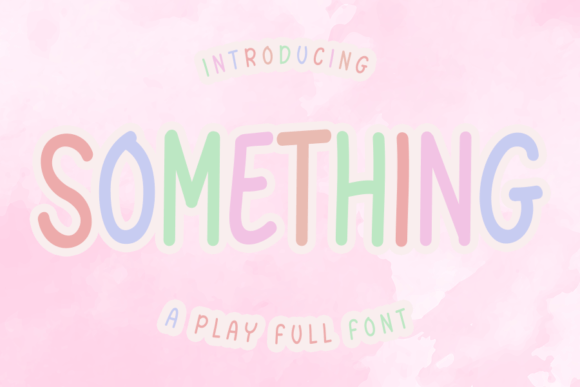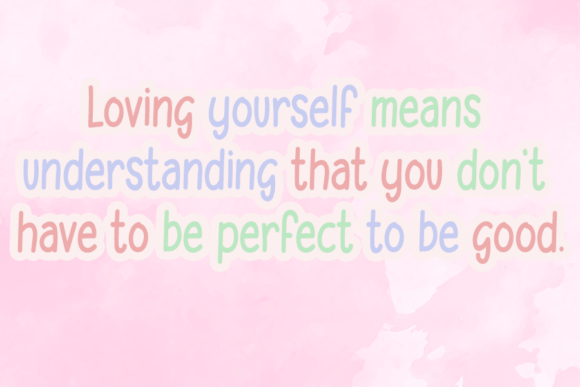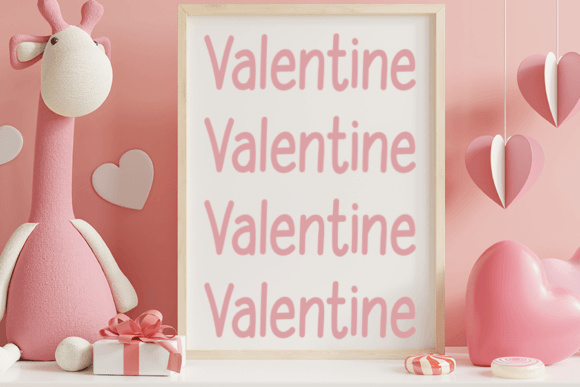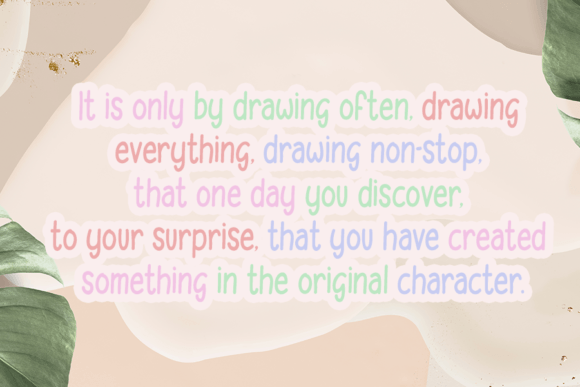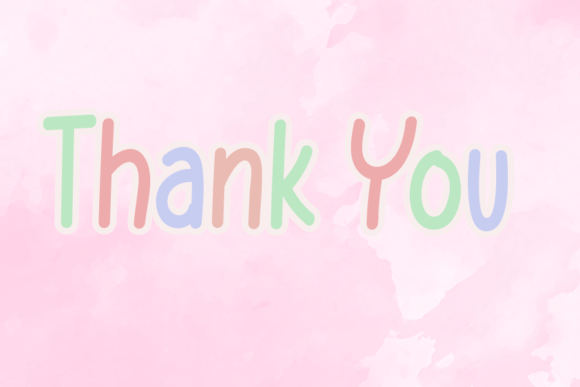
Something Font
About Something Font
Something Font is a cool and playful handwritten typeface with a clean and simple aesthetic. Designed with a touch of casual elegance, this font adds personality to any design project. It’s not just visually appealing—it’s also highly functional, making it easy to use across a wide variety of platforms and media.
A Handwritten Style for Any Occasion
Whether you are working on greeting cards, digital artwork, DIY crafts, or promotional designs, Something Font delivers great results. It fits effortlessly into:
• Social media graphics
• Brand packaging and product labels
• Invitations and event materials
• Personalized merchandise like mugs, shirts, and tote bags
• Quotes, posters, and presentations
Furthermore, its versatility ensures that your message remains friendly and engaging without becoming overwhelming or difficult to read.
Creative Impact Made Simple
Adding Something Font to your project is like giving it a burst of charm. While it maintains a laid-back vibe, it still manages to stand out thanks to its balanced curves and handwritten appeal. In fact, the font’s casual tone works especially well when you want to create a relaxed and approachable atmosphere in your design.
In addition, this font is great for projects that require a human touch. It feels personal, warm, and inviting—making it ideal for emotional branding, children’s designs, or lifestyle content.
Why Choose Something Font?
• Easy to use: Even if you’re new to design, this font is beginner-friendly and ready to use right away.
• Flexible: It works well in both large titles and small text elements.
• Reliable: Because it’s well-crafted, it keeps its form even when resized.
• Fun yet functional: It adds flair without sacrificing clarity.